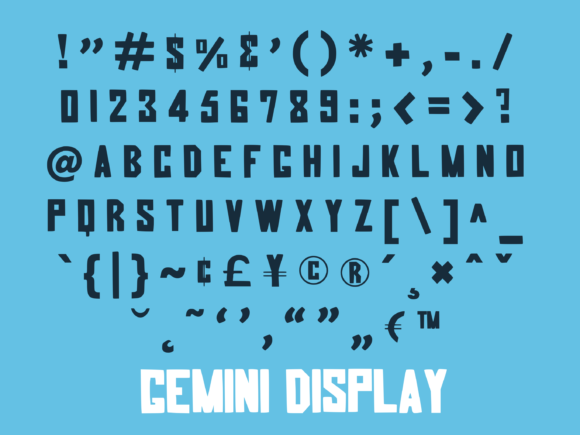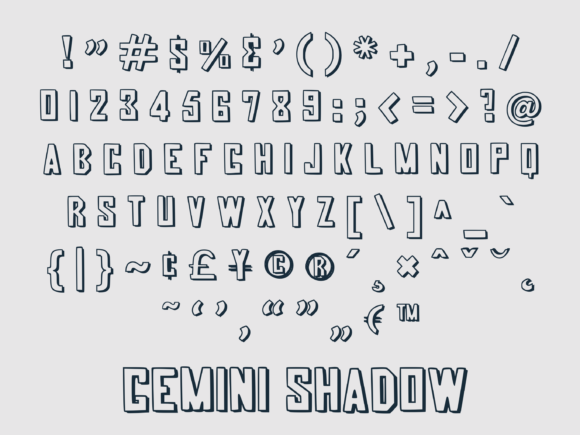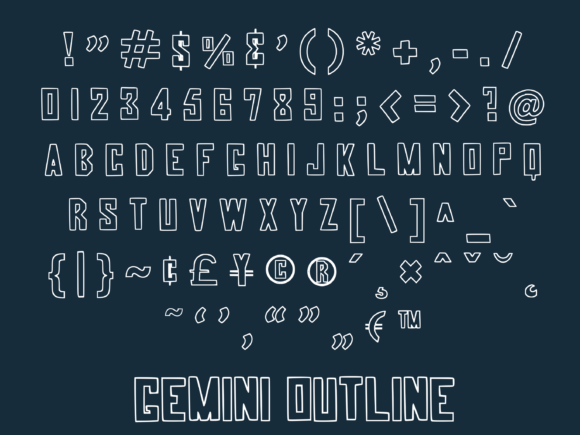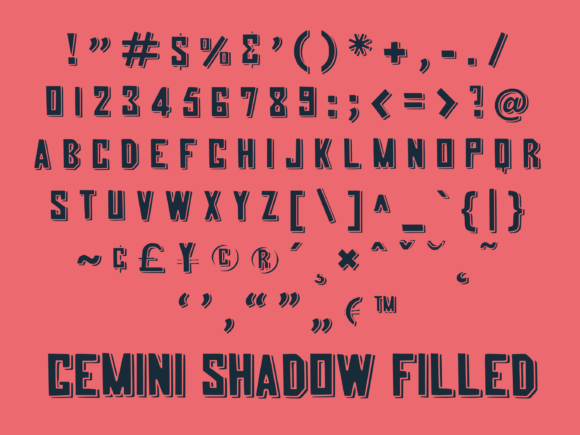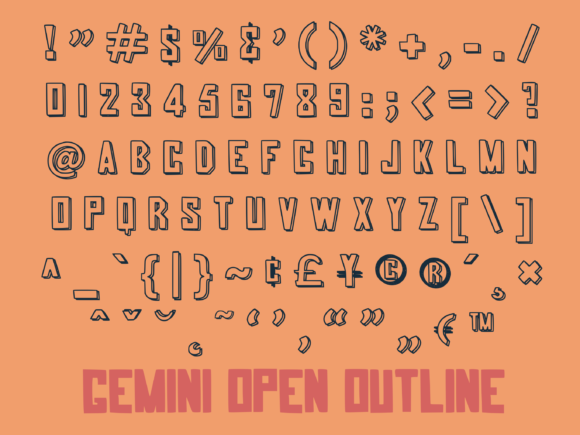
Introducing Gemini Font: A Bold and Versatile Display Typeface
In the world of typography, a good font can make all the difference in the visual impact of a design. For designers and crafters looking for a bold and eye-catching typeface, Gemini Font is an excellent choice. This sans-serif font family consists of five unique typefaces, each with its own distinct aesthetic while maintaining a consistent signature display look.
What is Gemini Font?
Gemini Font is a bold, all-caps font family designed to make a statement. With its clean and modern sans-serif design, it’s perfect for headlines, titles, and display text. The font family comprises five typefaces, each with its own character and flair. Whether you’re looking for a font for branding, advertising, or packaging, Gemini Font is an excellent option.
Key Features of Gemini Font
- Bold and eye-catching: Gemini Font is designed to grab attention. Its bold and all-caps design makes it perfect for display text and headlines.
- Five unique typefaces: Each typeface in the Gemini Font family has its own distinct aesthetic, allowing designers to choose the one that best fits their project’s needs.
- Consistent signature look: Despite the unique characteristics of each typeface, they all share a consistent signature display look that ties the family together.
- Clean and modern sans-serif design: Gemini Font features a clean and modern sans-serif design that’s perfect for a wide range of applications.
Who is Gemini Font for?
Gemini Font is perfect for designers and crafters looking for a bold and versatile display typeface. Whether you’re working on a branding project, creating advertising materials, or designing packaging, Gemini Font is an excellent choice. Its clean and modern design makes it suitable for a wide range of industries, from tech and finance to fashion and lifestyle.
How to Use Gemini Font
Gemini Font is easy to use and can be applied to a variety of design projects. Here are a few tips on how to get the most out of this font:
- Use it for headlines and titles: Gemini Font is perfect for headlines and titles, where its bold and eye-catching design can make a big impact.
- Experiment with different typefaces: Try out different typefaces within the Gemini Font family to find the one that best fits your project’s needs.
- Pair it with other fonts: Gemini Font can be paired with other fonts to create a unique and visually appealing typography combination.
Benefits of Using Gemini Font
There are several benefits to using Gemini Font in your design projects:
- Instant recognition: Gemini Font’s bold and eye-catching design ensures instant recognition and attention-grabbing impact.
- Versatility: With five unique typefaces to choose from, Gemini Font offers a high level of versatility and flexibility.
- Professional look: Gemini Font’s clean and modern sans-serif design gives your design projects a professional and polished look.
Gemini Font is a bold and versatile display typeface that’s perfect for designers and crafters looking to make a statement. With its five unique typefaces and consistent signature display look, it’s an excellent choice for a wide range of design projects. Whether you’re working on branding, advertising, or packaging, Gemini Font is sure to grab attention and make your design stand out.